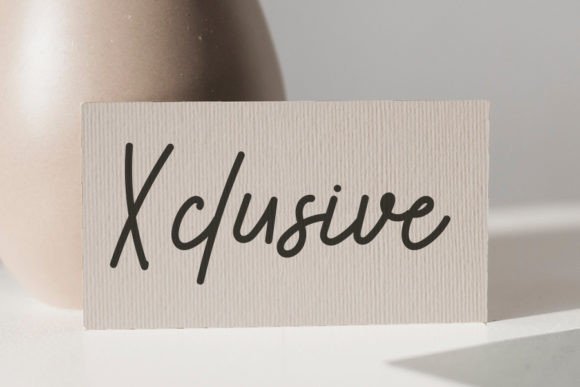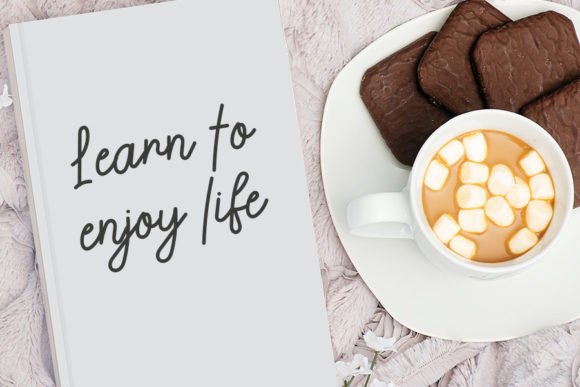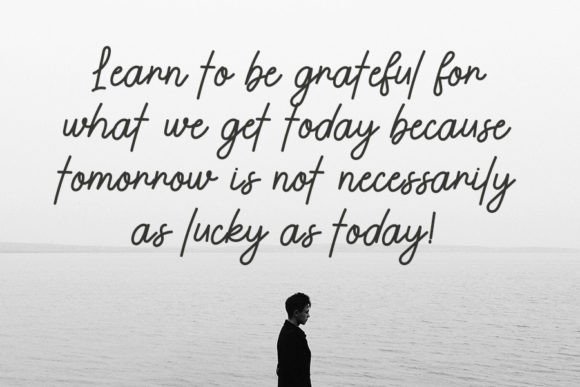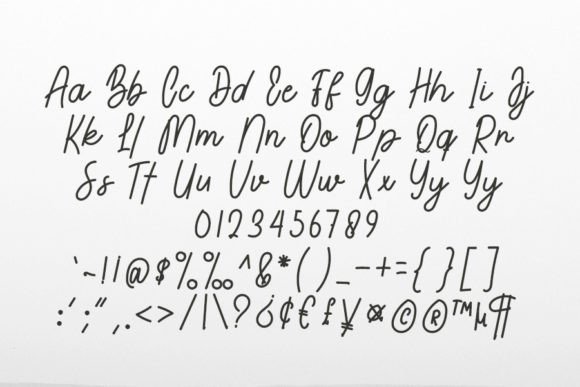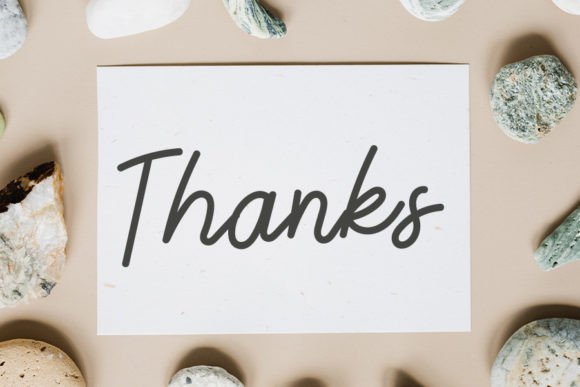
Introducing Continue Font: The Perfect Handwritten Companion for Your Design Projects
Are you tired of using the same old fonts in your design projects? Look no further! Continue Font is a beautiful, handwritten font that is sure to add a touch of elegance and sophistication to your work. With its balanced and varied strokes, this lovely font is perfect for designers and crafters looking to enhance the beauty of their projects.
A Balanced and Versatile Font
Continue Font is not too thin and not too thick, making it a versatile choice for a wide range of design applications. Its balanced strokes ensure that your text is always legible and visually appealing, whether you’re using it for a title, a heading, or body text. The font’s varied letterforms add a touch of whimsy and personality to your text, making it perfect for projects that require a bit of flair.
Designed to Enhance Your Projects
Continue Font was designed with one goal in mind: to enhance the beauty of your projects. Whether you’re working on a logo, a brochure, a website, or a craft project, this font is sure to add a touch of elegance and sophistication. Its handwritten feel makes it perfect for projects that require a personal touch, such as invitations, greeting cards, and packaging.
Continue Font is a must-have for designers and crafters who want to add a touch of personality to their work. Its unique and varied letterforms make it perfect for projects that require a bit of flair, such as:
- Brochures and flyers
- Websites and social media graphics
- Craft projects, such as quilting, sewing, and paper crafting
Why Choose Continue Font?
There are many reasons why Continue Font is a great choice for your design projects. Here are just a few:
- Unique and varied letterforms: Continue Font has a unique and varied feel that sets it apart from other fonts.
- Balanced and legible: The font’s balanced strokes ensure that your text is always legible and visually appealing.
- Versatile: Continue Font is perfect for a wide range of design applications, from logos and branding materials to websites and social media graphics.
Get Creative with Continue Font
Now that you’ve learned more about Continue Font, it’s time to get creative! Here are a few ideas to get you started:
- Use Continue Font to create a beautiful logo or branding materials for your business.
- Add a personal touch to your invitations and greeting cards with Continue Font.
- Use Continue Font to create a unique and eye-catching website or social media graphic.
- Incorporate Continue Font into your craft projects, such as quilting, sewing, and paper crafting.